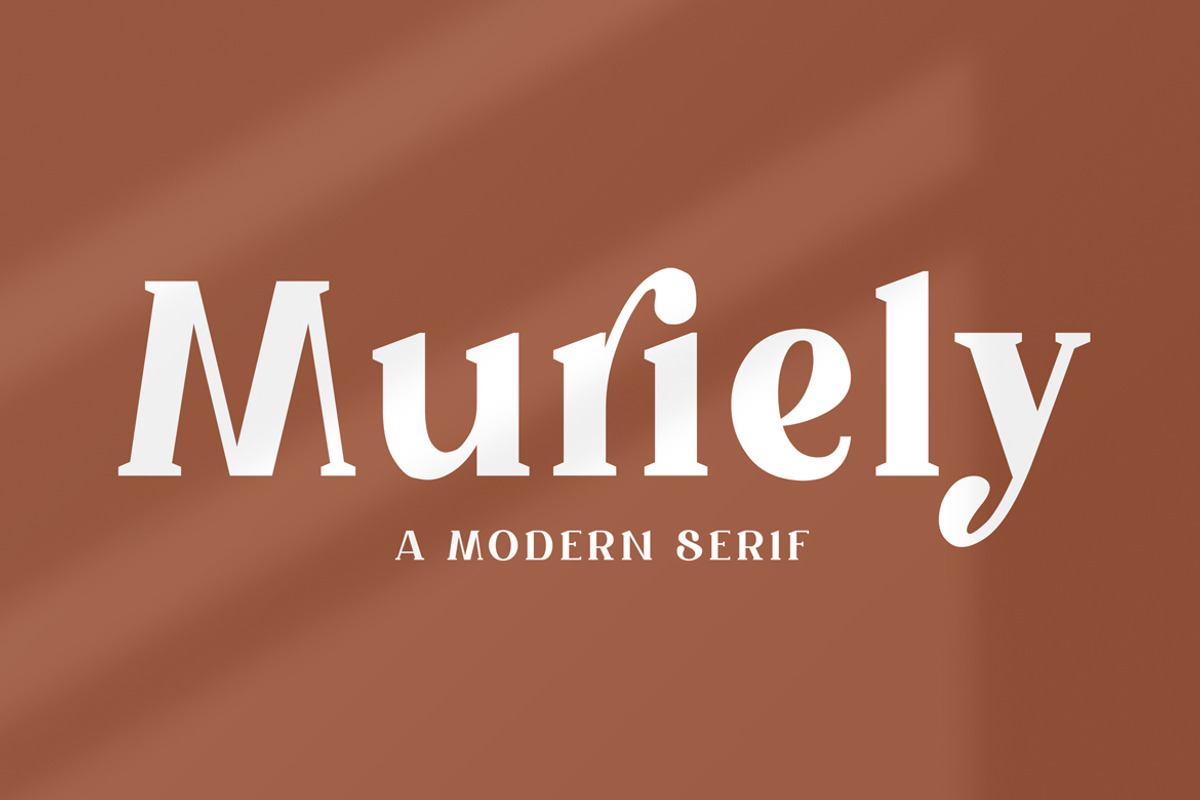
Muriely - A Modern Serif Font Free Download is a refined and elegant typeface designed to bring a contemporary flair to your design projects. With its clean lines, sharp serifs, and sophisticated structure, this font is perfect for high-end branding, editorial layouts, luxury product packaging, and professional websites. The modern design combined with classic serif elements gives Muriely a timeless yet fresh appeal, ensuring your text stands out with grace and clarity. Whether you're working on a sleek logo or a chic magazine spread, Muriely - A Modern Serif Font Free Download allows you to test its premium quality in personal projects before deciding to purchase a commercial license. Elevate your work with a font that conveys professionalism and modern elegance.